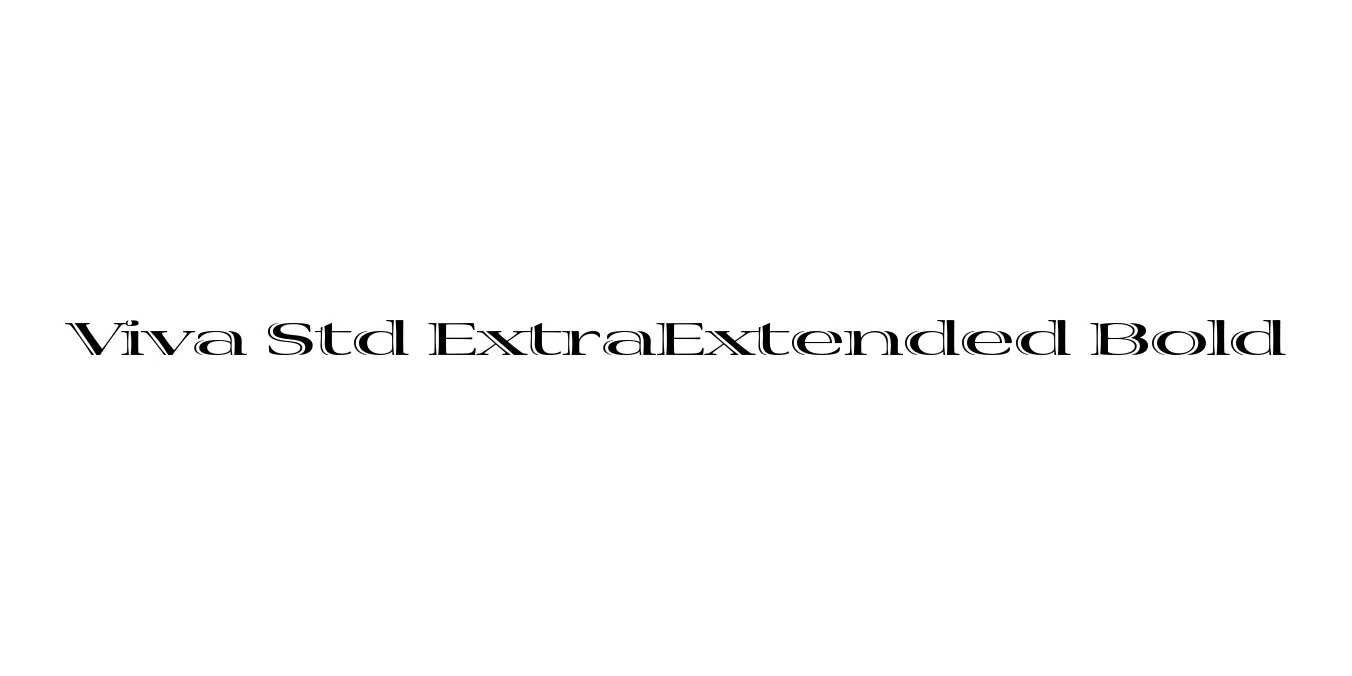
Viva Std ExtraExtended Bold
Designed by Carol Twombly
| Similar Fonts | Lithos, Castellar, Columna |
Viva Std ExtraExtended Bold is a striking display typeface designed by the renowned typographer Carol Twombly for Adobe in 1993. This font is a part of the Adobe Originals program and is characterized by its inline, open-face construction. Drawing inspiration from the vibrant and hand-lettered styles of the mid-20th century, Viva features a unique stencil-like quality that combines classical elegance with a modern, artistic flair. Its varied stroke weights and open counters create a sense of movement and depth, making it a standout choice for high-impact typography.
The ExtraExtended Bold variant is specifically engineered for maximum horizontal impact. By stretching the proportions of the letterforms, it commands attention in wide-format layouts and cinematic titling. This weight maintains the sophisticated inline detail while adding a robust physical presence. Whether used for luxury branding or expressive editorial design, Viva Std ExtraExtended Bold remains a versatile tool for designers who need a font that is both bold and intricately detailed.
Viva Std ExtraExtended Bold Best Uses
Ideal for cinematic movie titles and large-scale architectural headers.
Perfect for luxury logo designs and high-end retail packaging.
Great for magazine covers and pull quotes that require a bold, artistic touch.